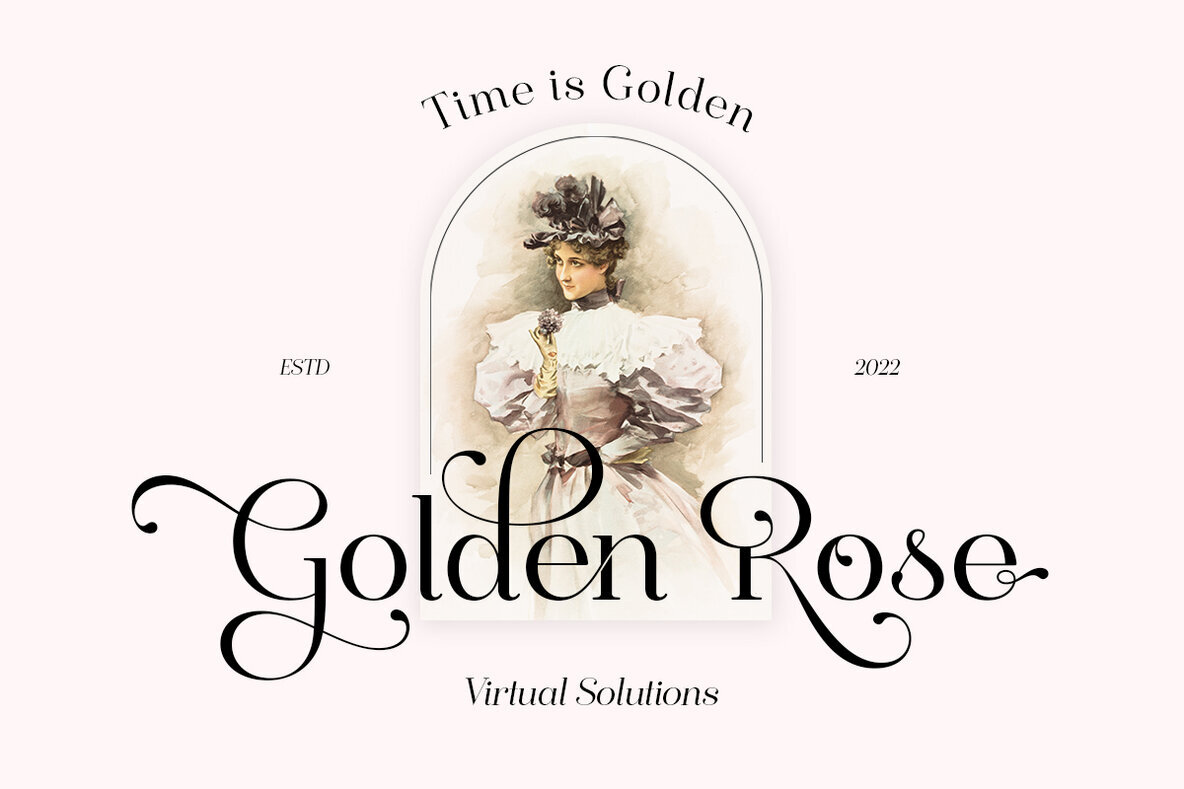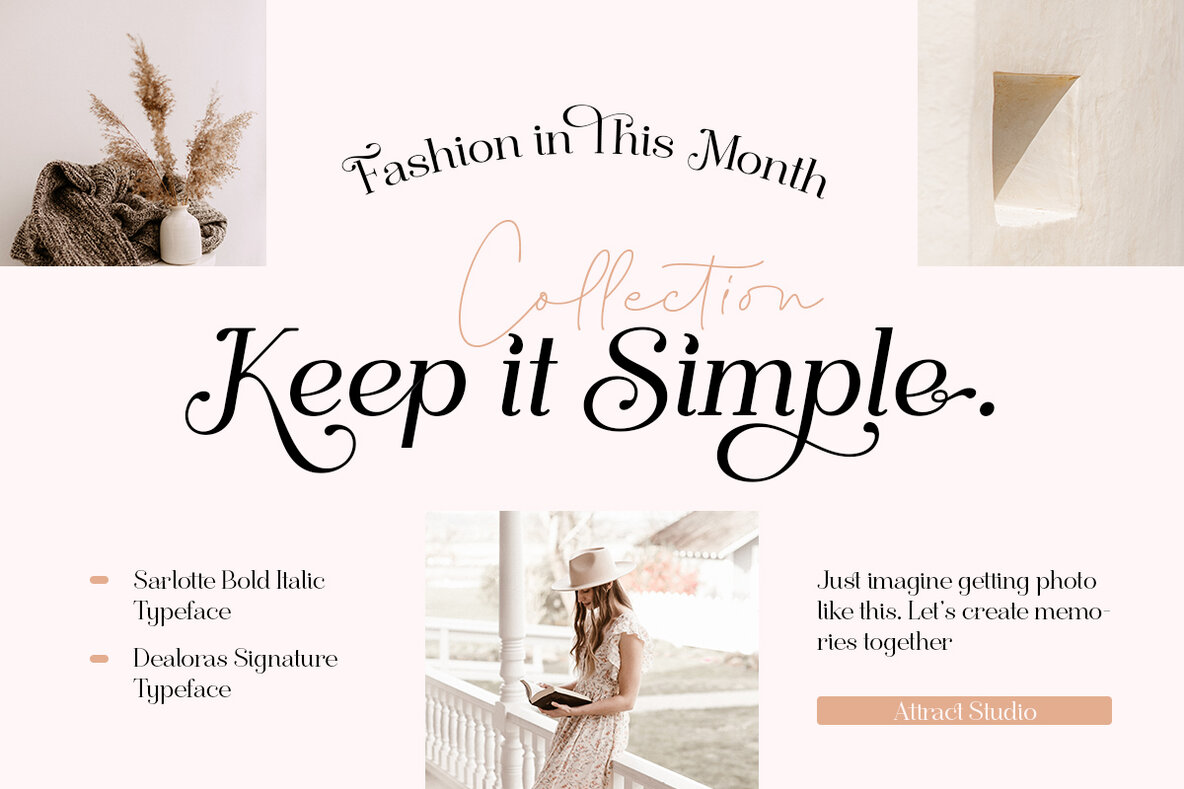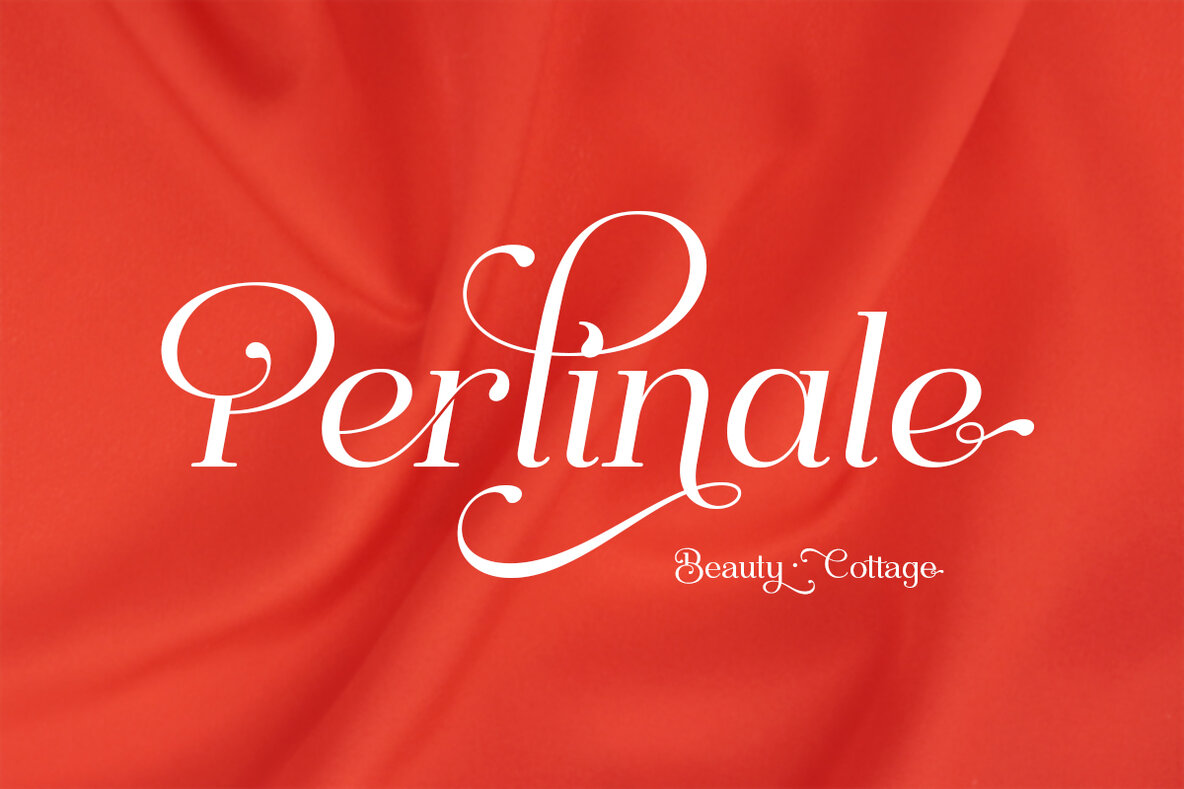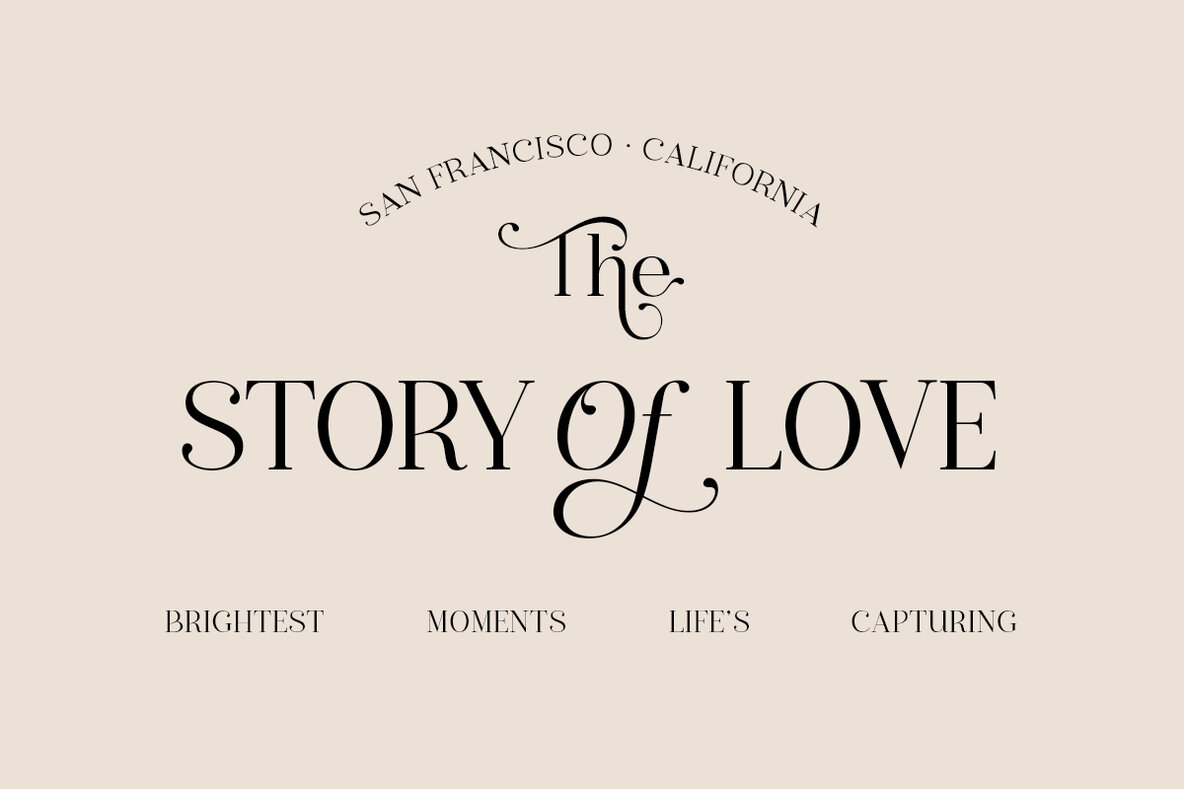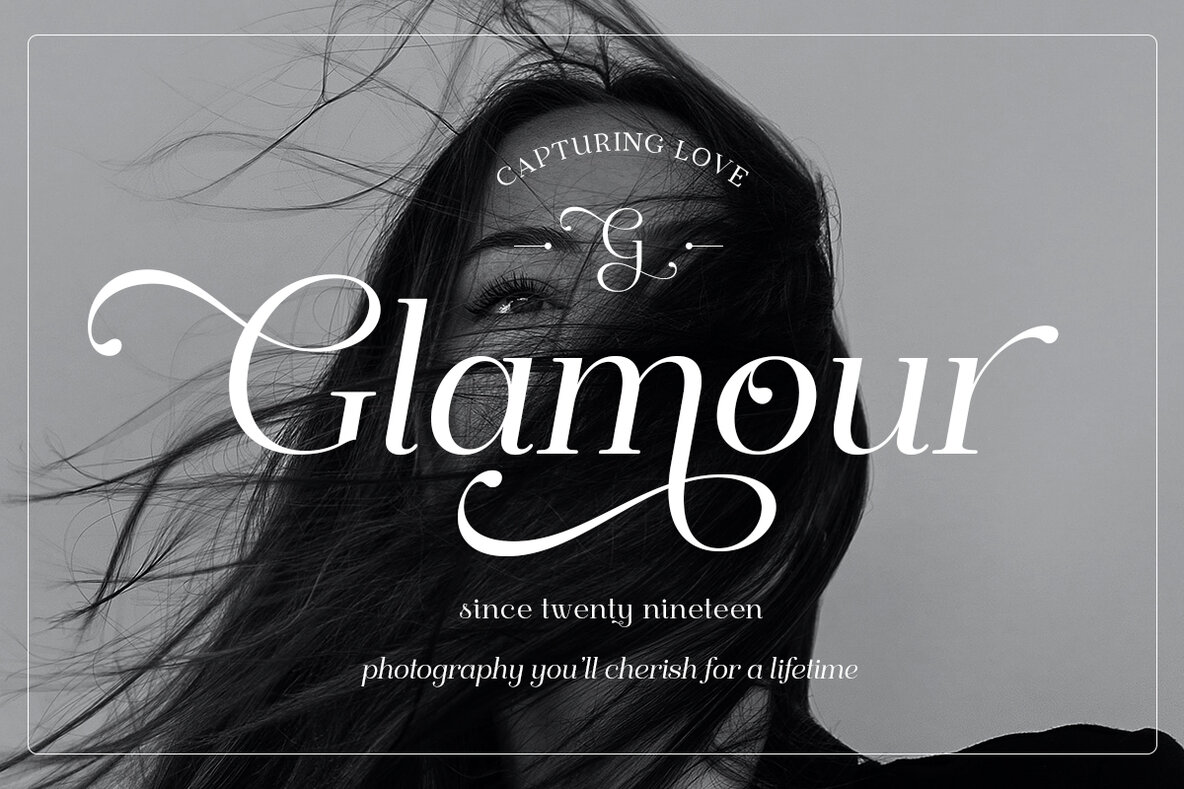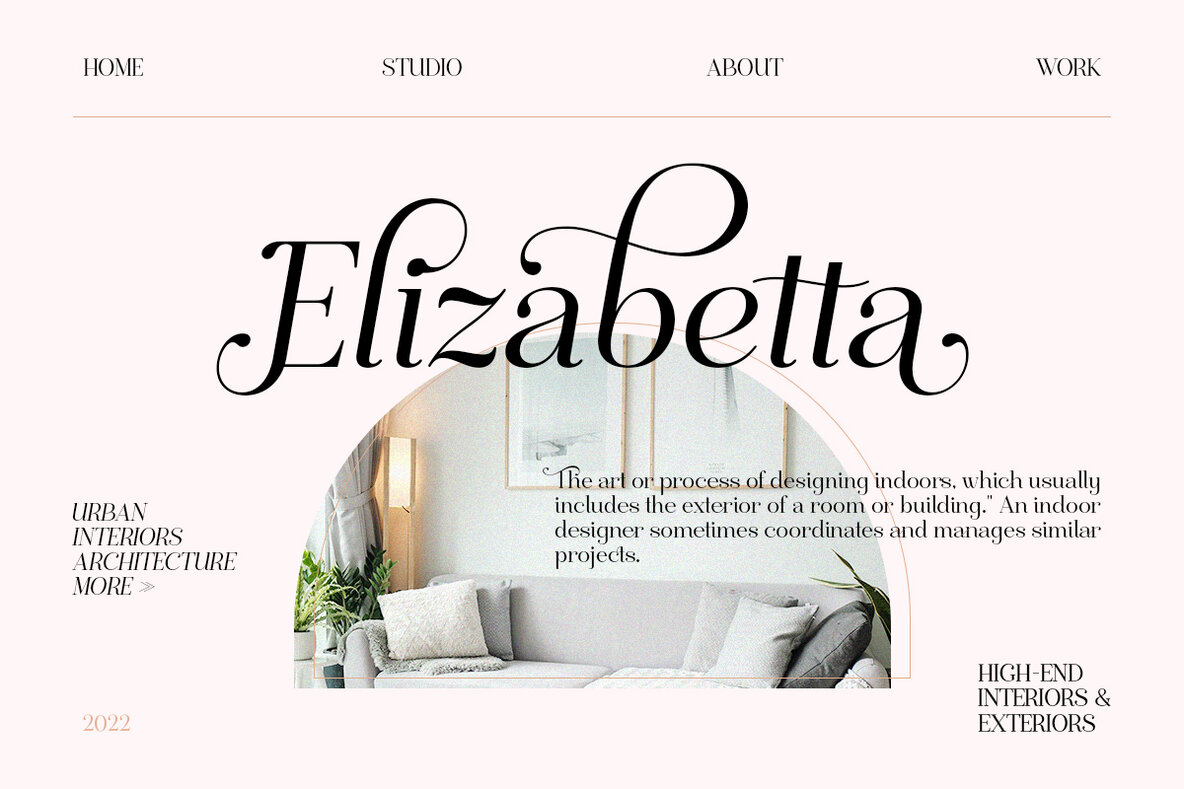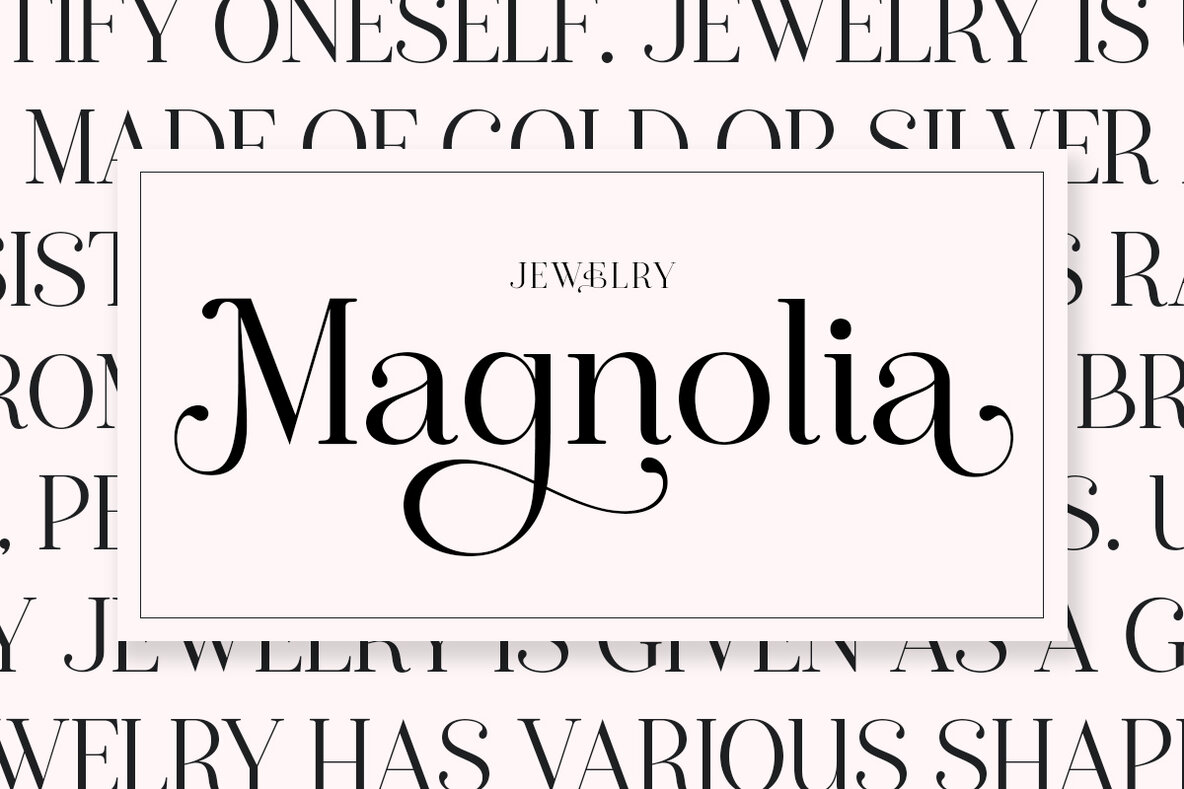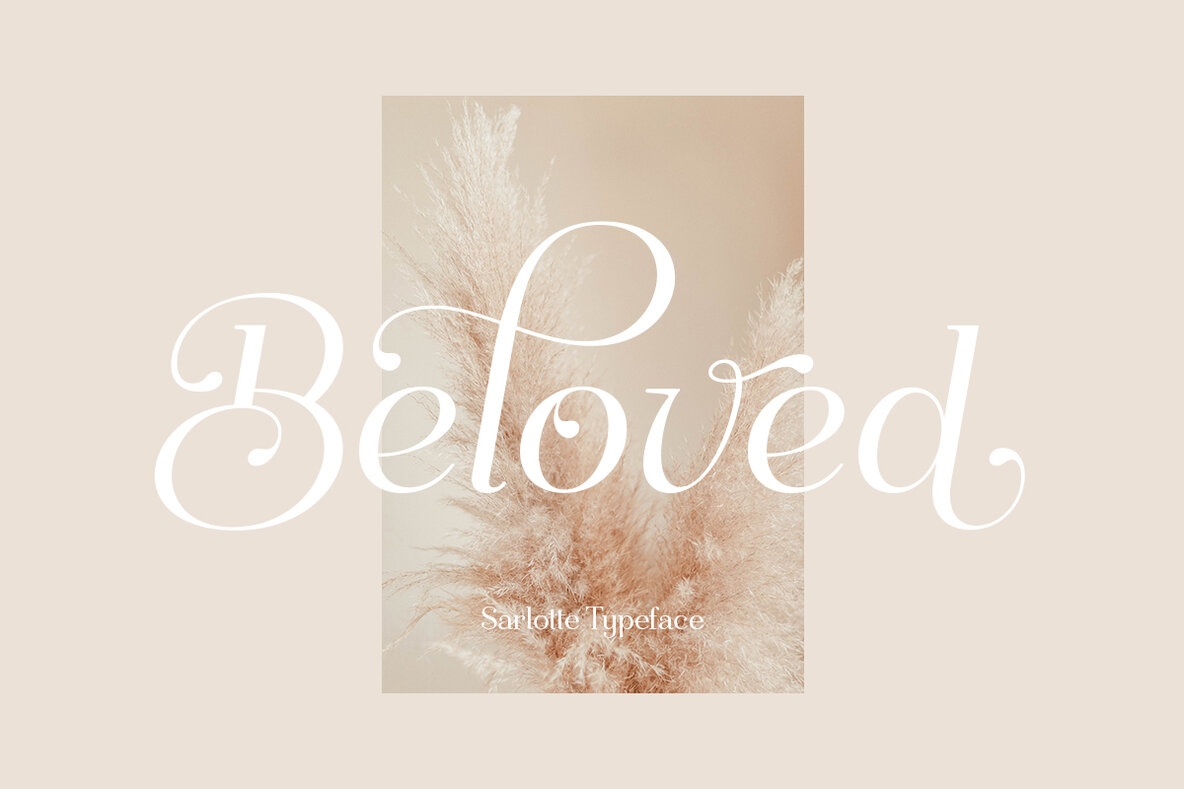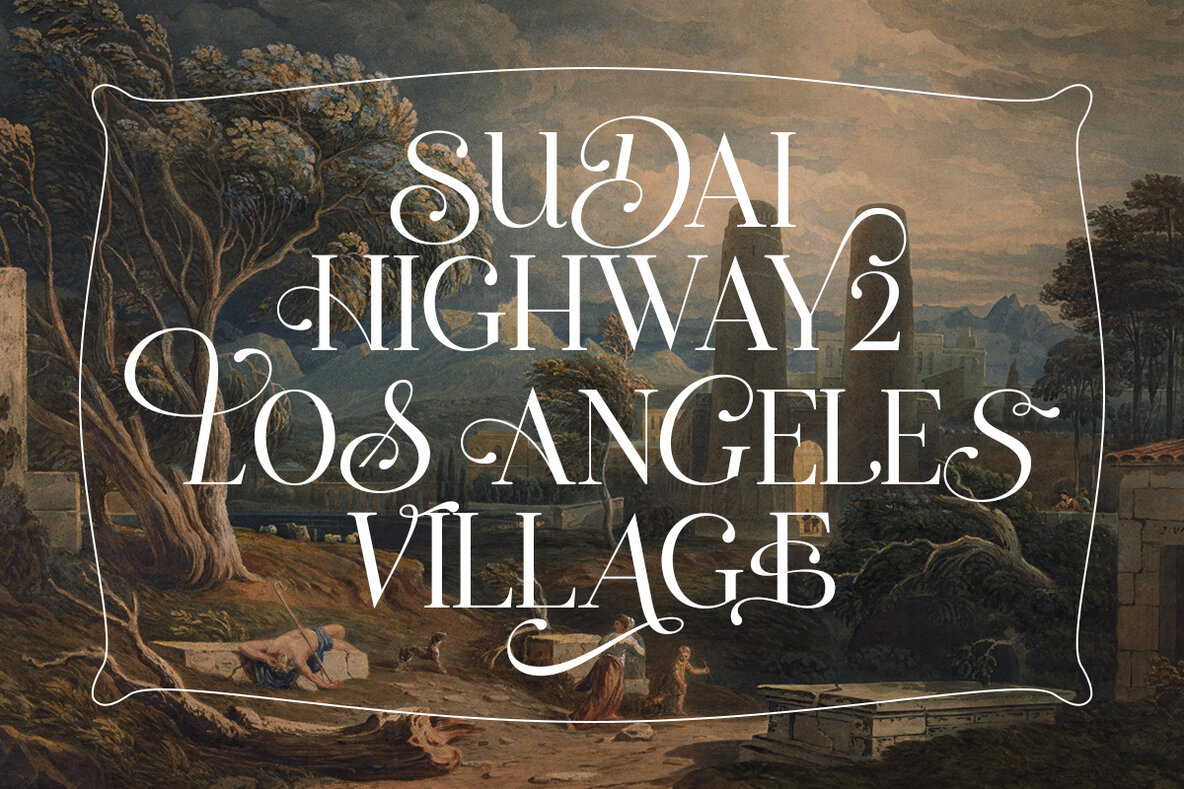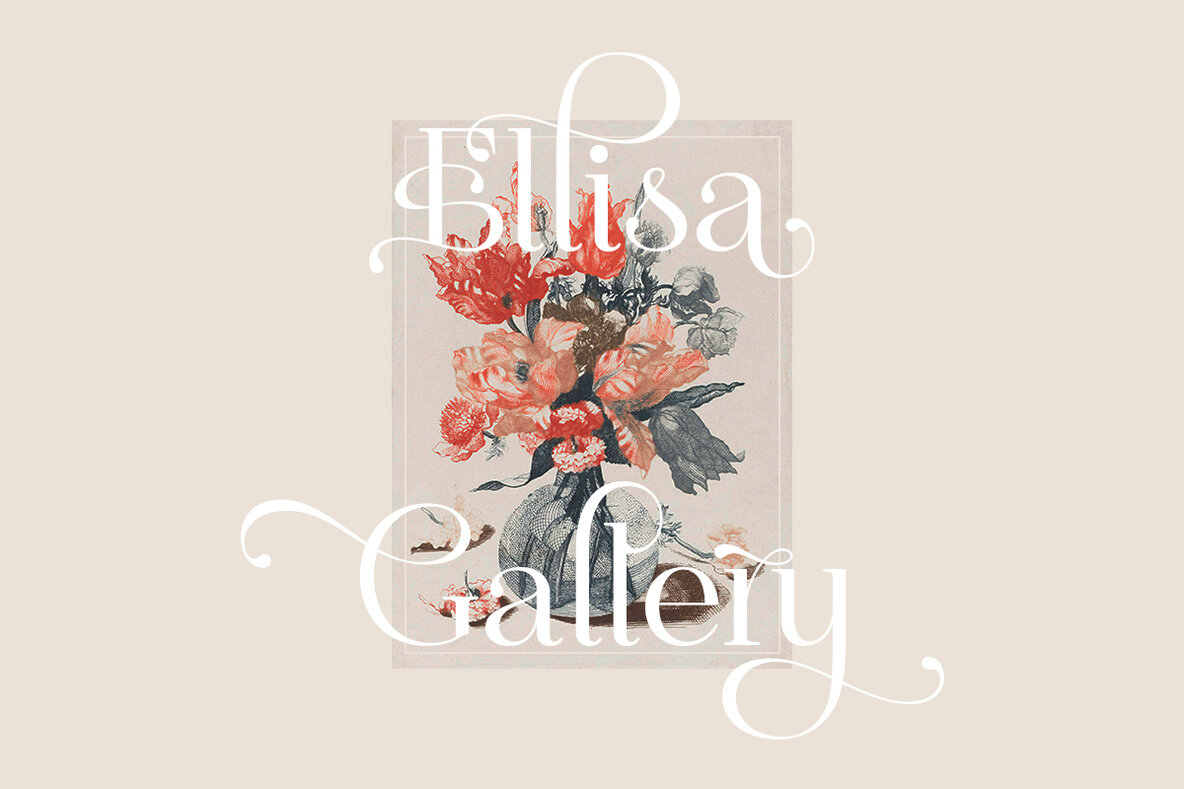
Sarlotte Font
Sarlotte is a luxurious serif with an elegant style. It seduces your eyes with its curves yet still manages to maintain its classy serenity, it's perfect for branding, logos, invitations, long texts, and many more of your other needs.
Sarlotte Features:
- 4 Weights
- Alternatives & Ligatures